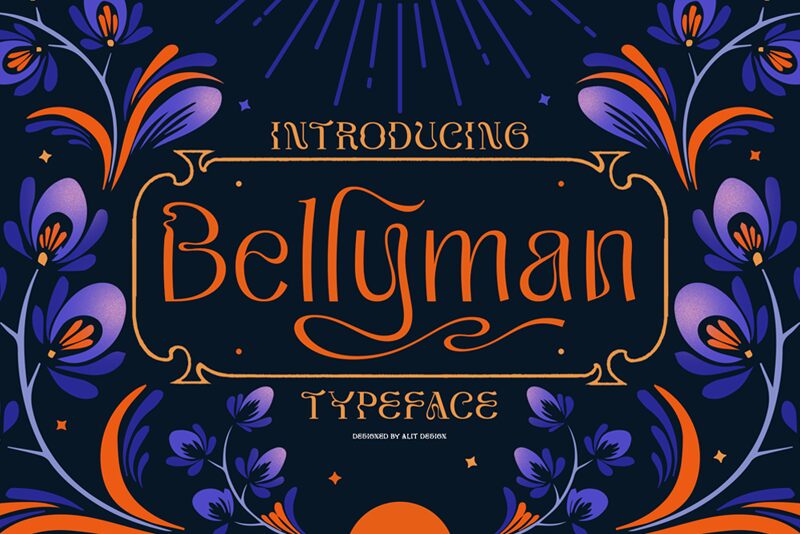
Bellyman Typeface by Alit Design is a captivating and modern display font that exudes uniqueness with its curvy, wave-like shape. With its semi-light weight, this 2022-style font offers a plethora of swash alternatives and ligatures, adding to its charm.
Suitable for various projects, especially those with an elegant and smooth concept, Bellyman is perfect for creating eye-catching posters, logos, branding materials, and more. Its versatility extends beyond design software as it seamlessly integrates into non-design programs as well.
With 623 glyphs and numerous intriguing alternative options, Bellyman Typeface will undoubtedly add flair to any creative endeavor.